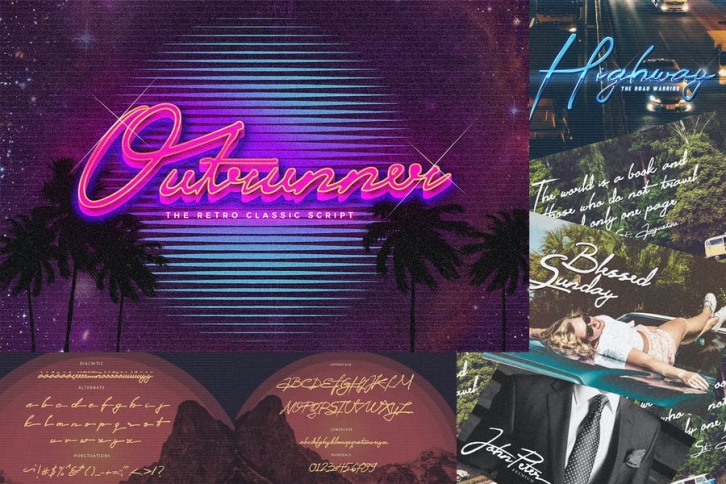
Remember the 80's era once people wearing vibrant colors, go to the disco or watching science fiction movie with colorful posters and listening to the dance music?
Yeah...We should revert back to the 80s!
Outrunner is retro classic script font that bring you back at 80's era!
This font is suitable for your retro, classic and also modern design : Signature. Logo. Branding. Invitation. Blog Headline. Merchandise and many more.
Feature :
• Numerals
• Alternates
• Punctuation
• Diacritic